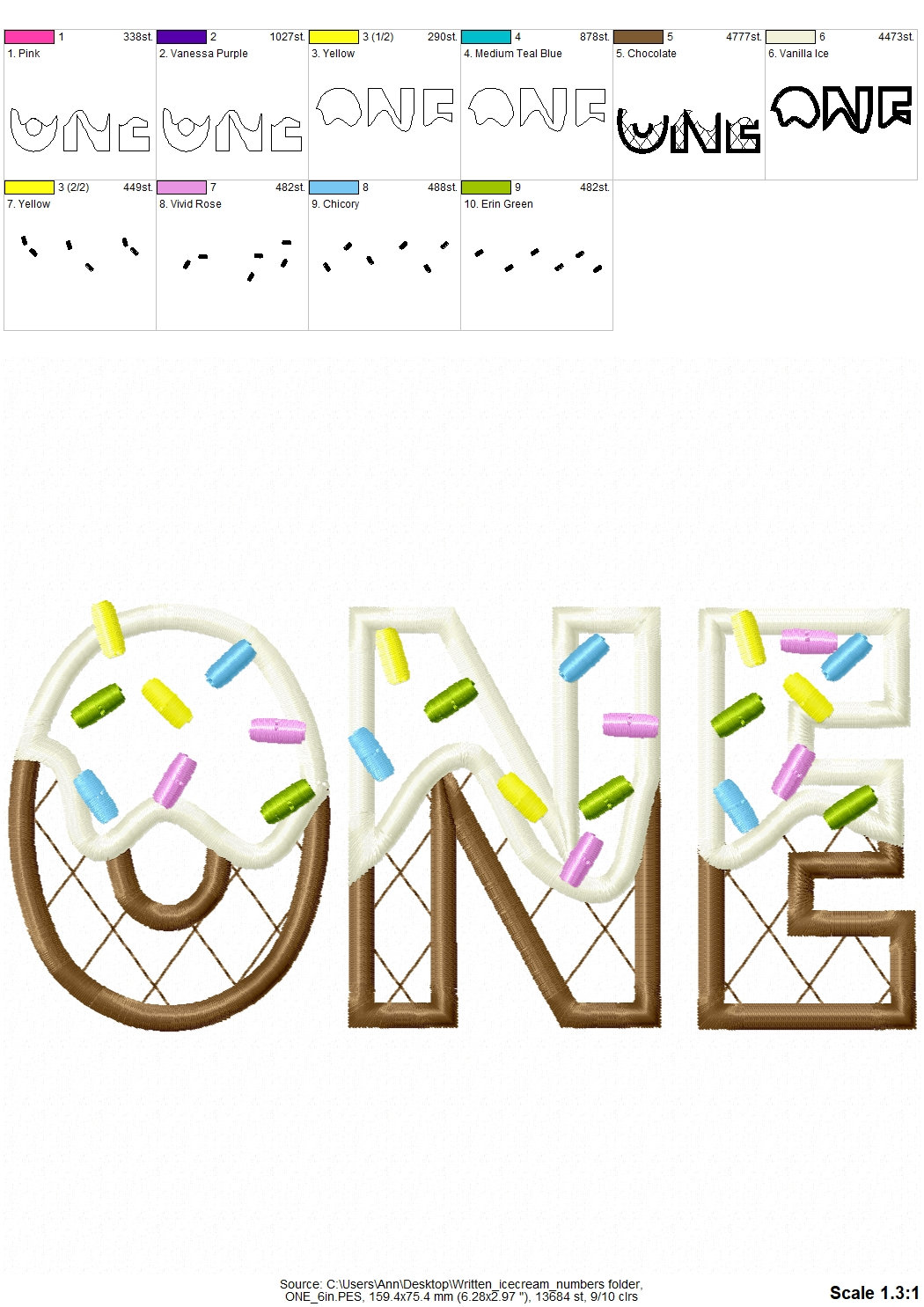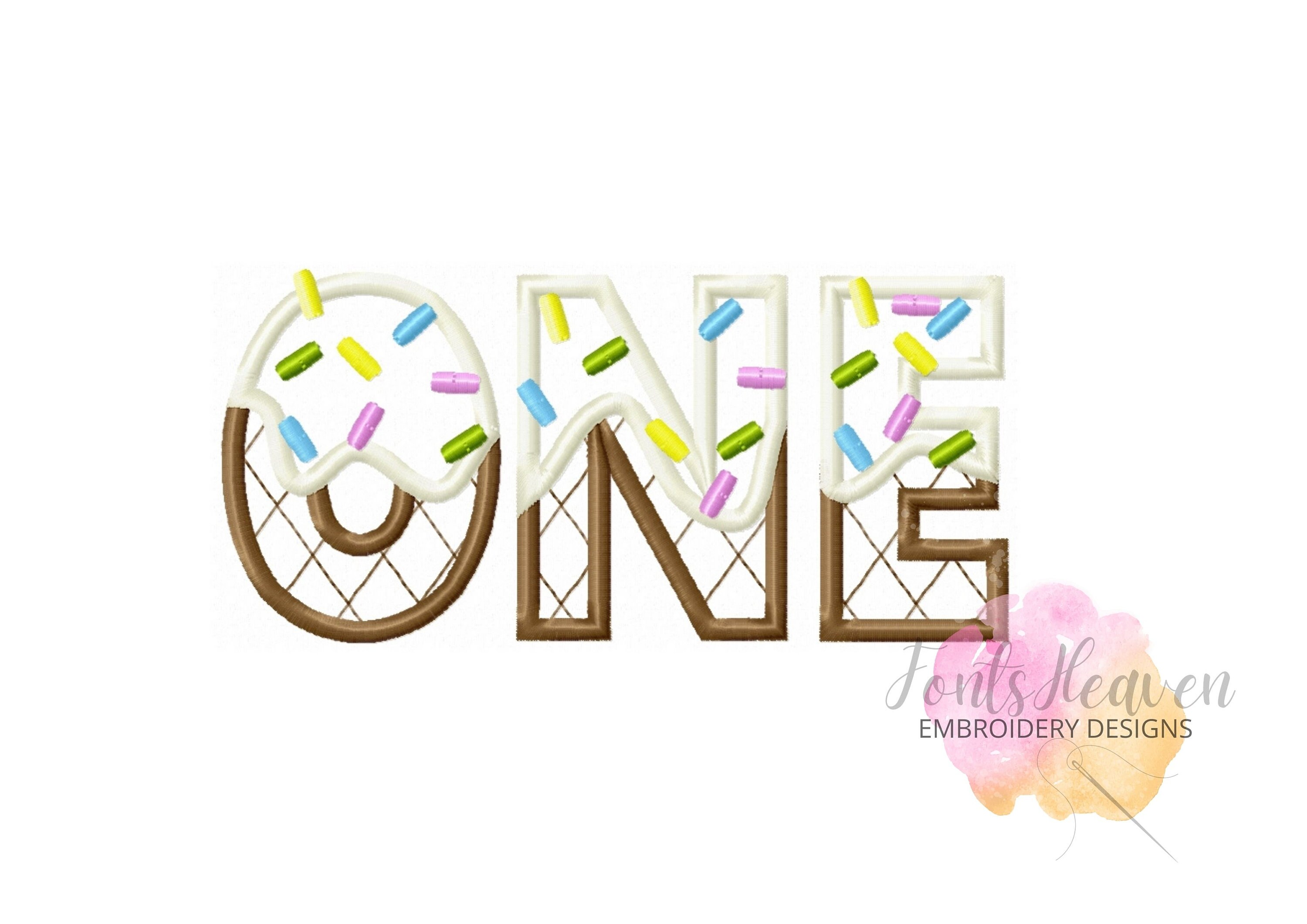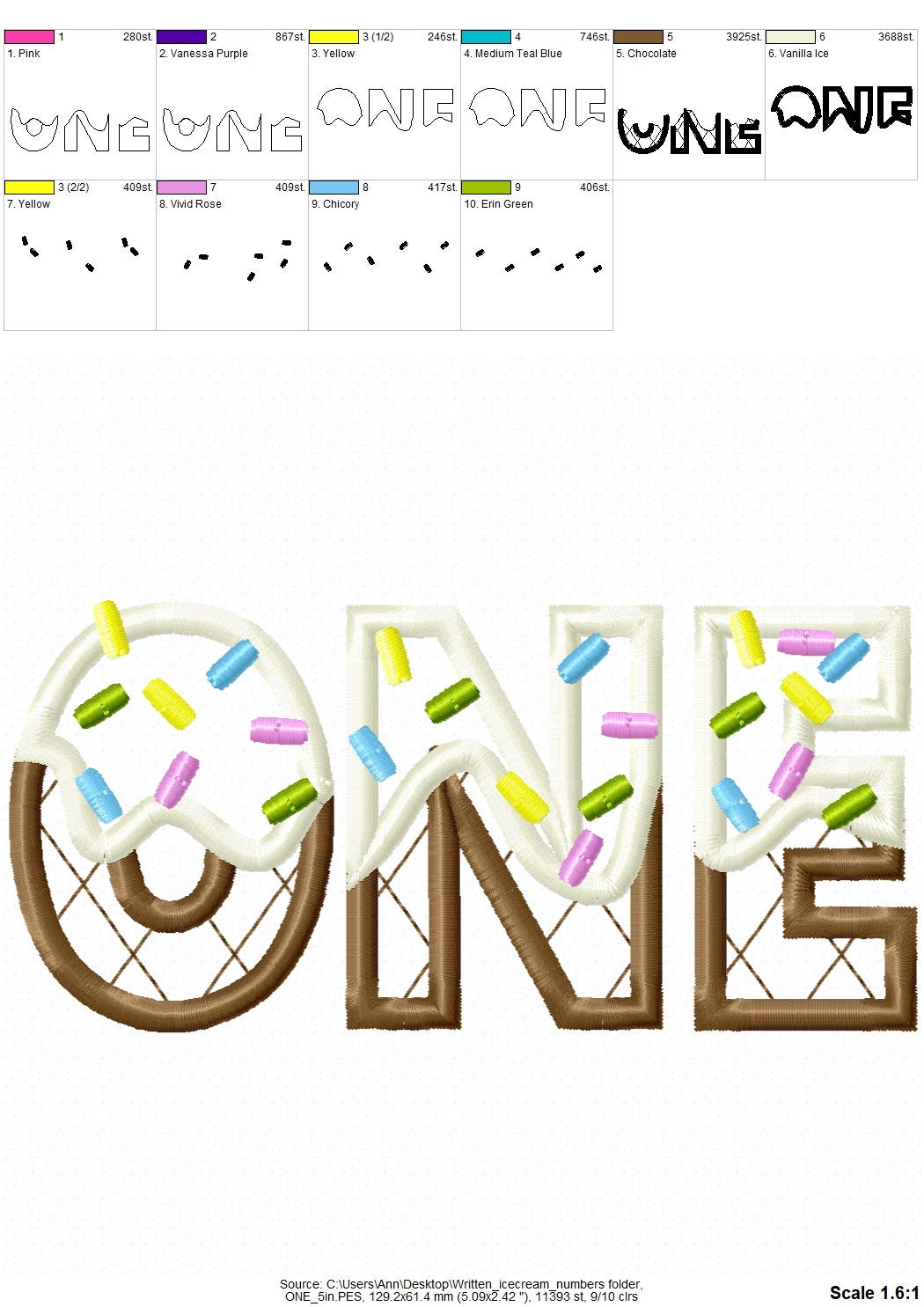
ONE Ice Cream cone Birthday Number one 1 applique machine embroidery designs in assorted sizes, word number one baby first birthday party
Number ONE 1 Appliqué designs